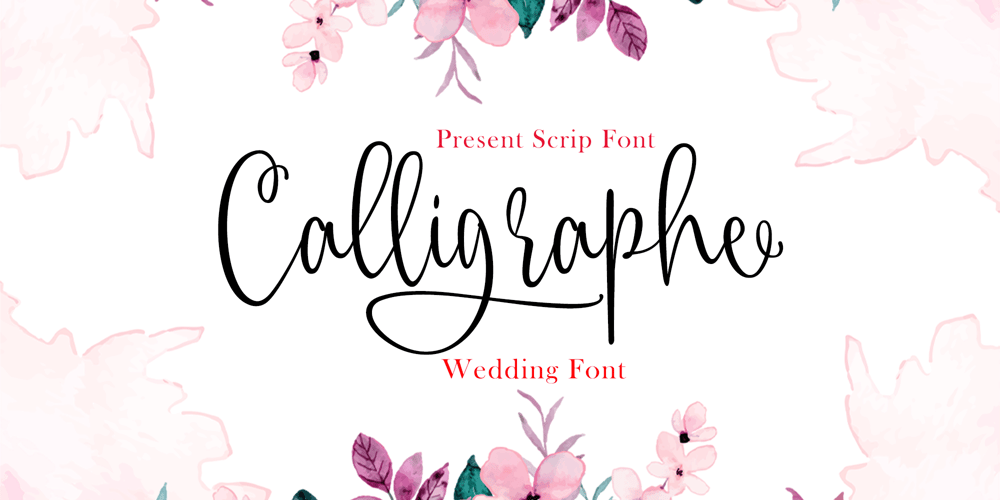
Calligraphe Font Family was designed by Fadhil Aqsa and published by Meutuwah. Calligraphe contains 1 styles and family package options. INTRODUCINGCalligraphe Script is a stylish calligraphy font that features a varying baseline, smooth line, classic and interesting touch. Can be used for various purposes. such as headings, signature, logos, posters, t-shirt, signage, lable, wedding invitation, badges etc.Programs that support in this font is a Microsoft Office Adobe Photo Shop, Adobe Illustrator, Adobe Indesign, and Corel Draw, and badges etc.Thank you so Much…..!